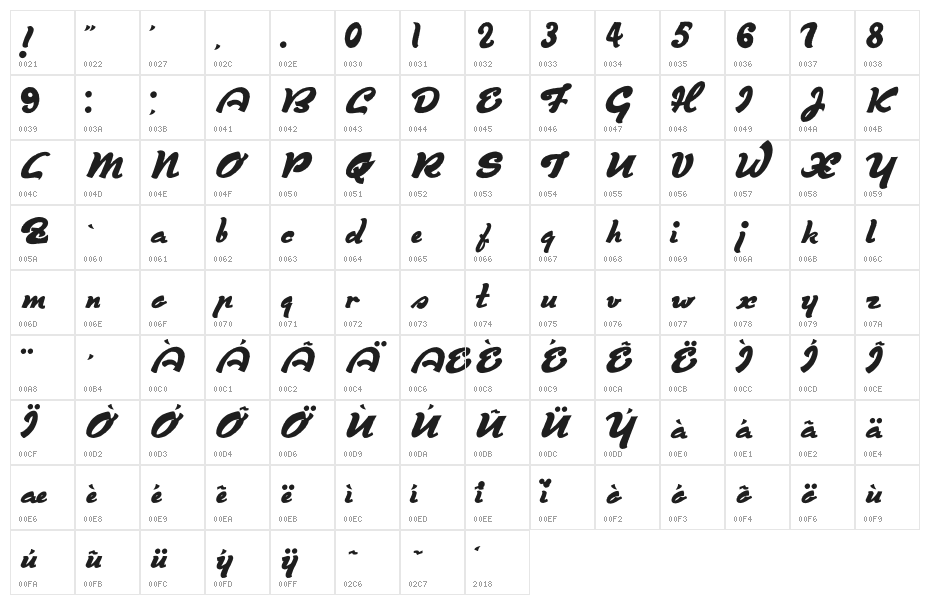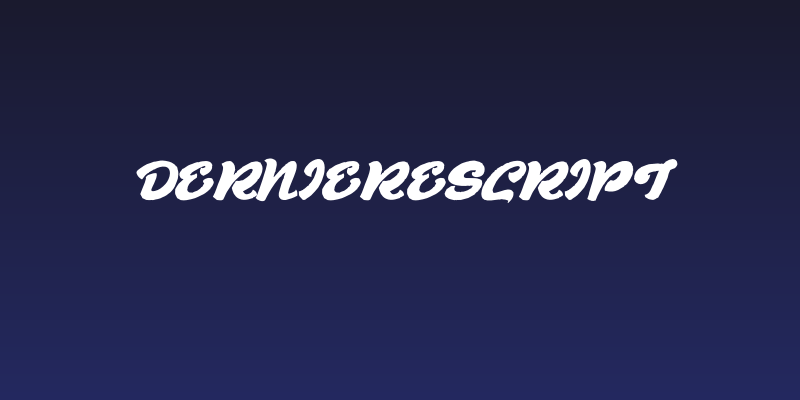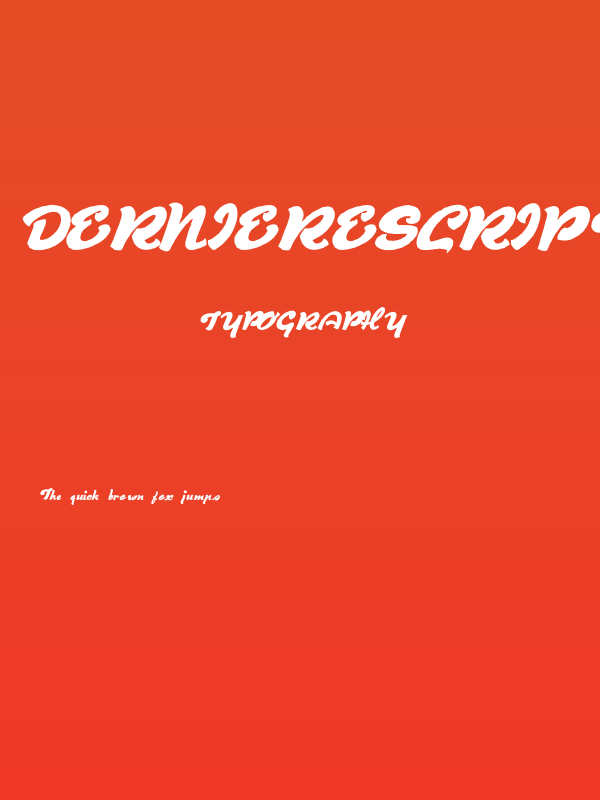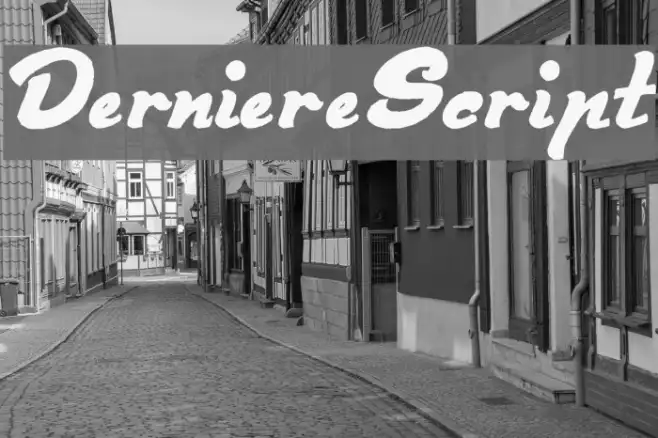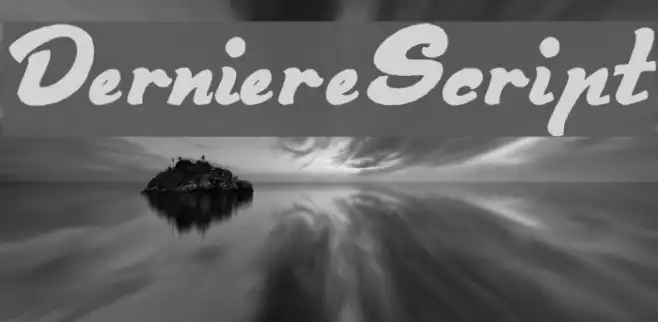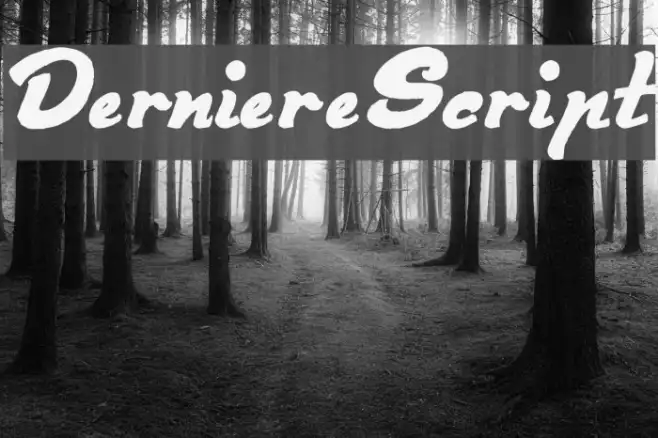
DerniereScript Font
DerniereScript Description
This font exudes a bold and dynamic script style, characterized by its flowing, cursive letterforms that convey a sense of elegance and movement. The uppercase letters are slightly more upright, while the lowercase letters feature a more pronounced slant, enhancing the script's fluidity. The numerals maintain the same cursive style, ensuring consistency across all characters. The strokes are thick and confident, with a medium contrast that adds to the font's readability and visual appeal. This script is ideal for projects that require a touch of sophistication and flair.
| Proposed Projects | Ideal for wedding invitations, elegant branding, greeting cards, and decorative headlines. |